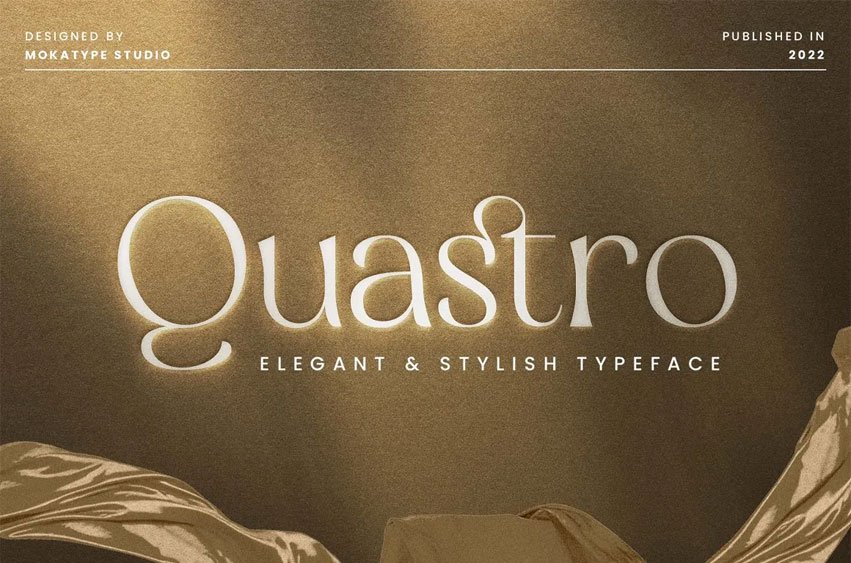
Quastro Serif Font: Elegant and Stylish Display Serif is a unique font that uses ligatures to smoothly link letters. Perfect for adding a unique twist to word-mark logos, monograms or pull quotes.Quastro has 12 ligatures can be turned off if required standard writing needs.